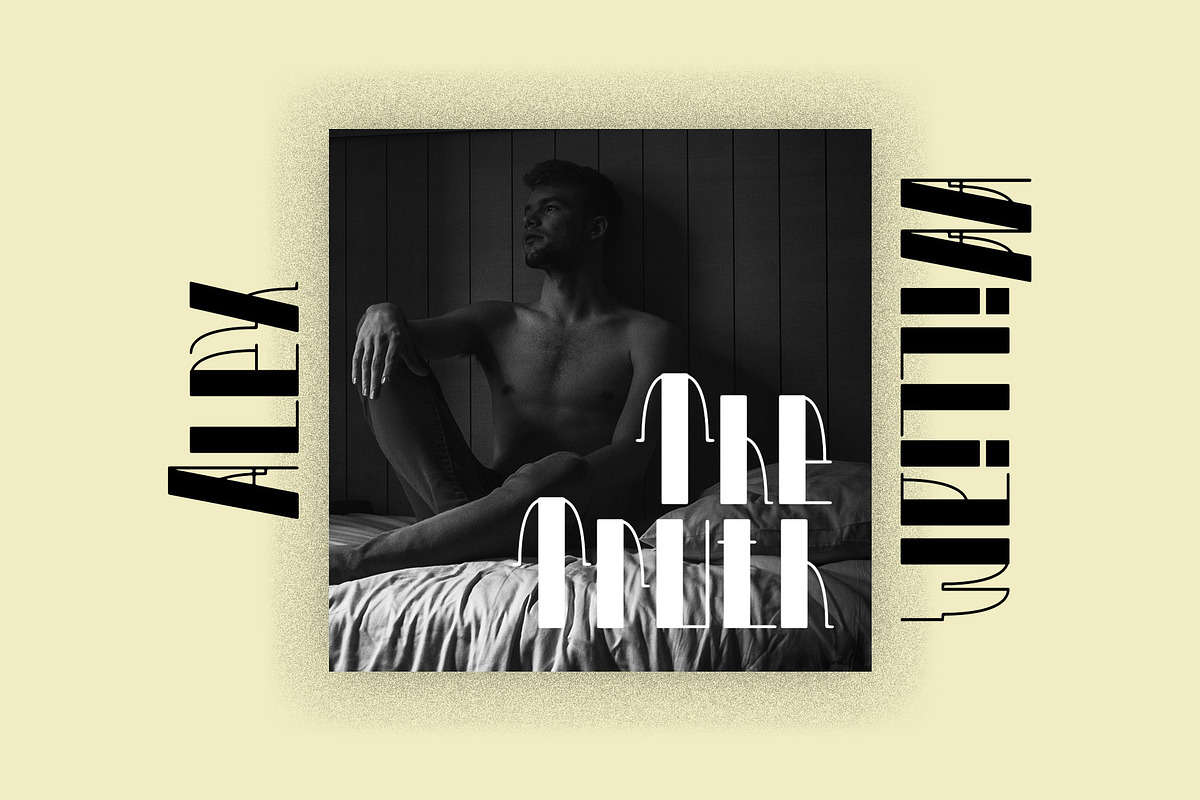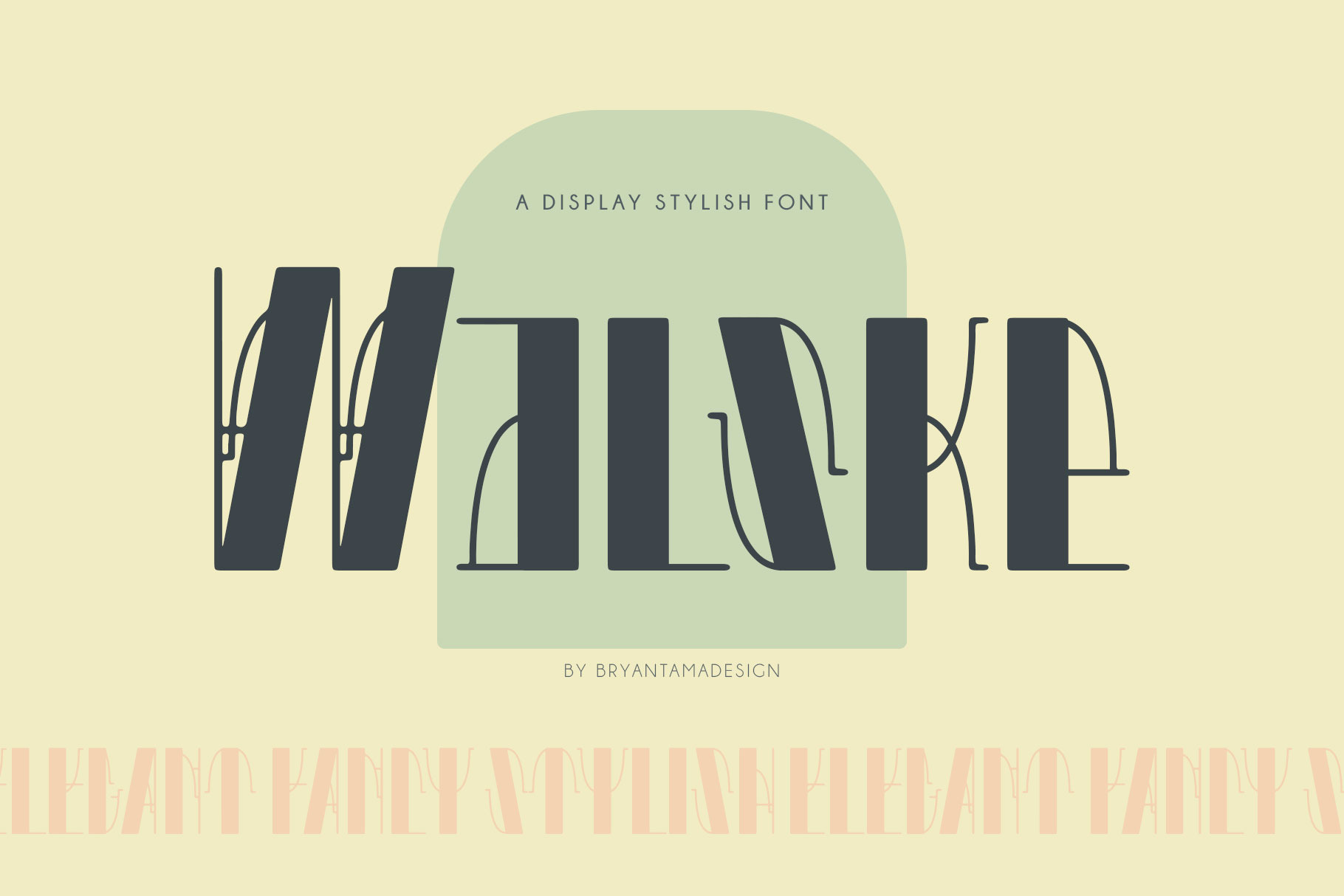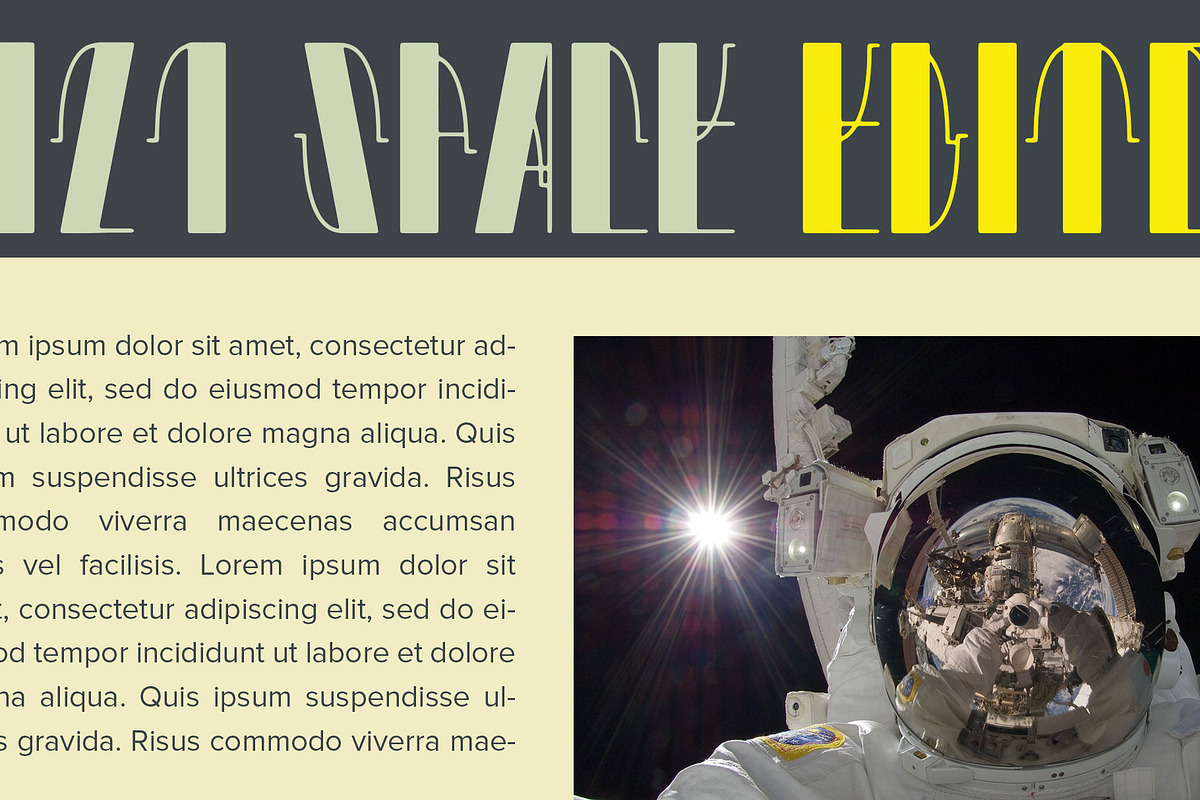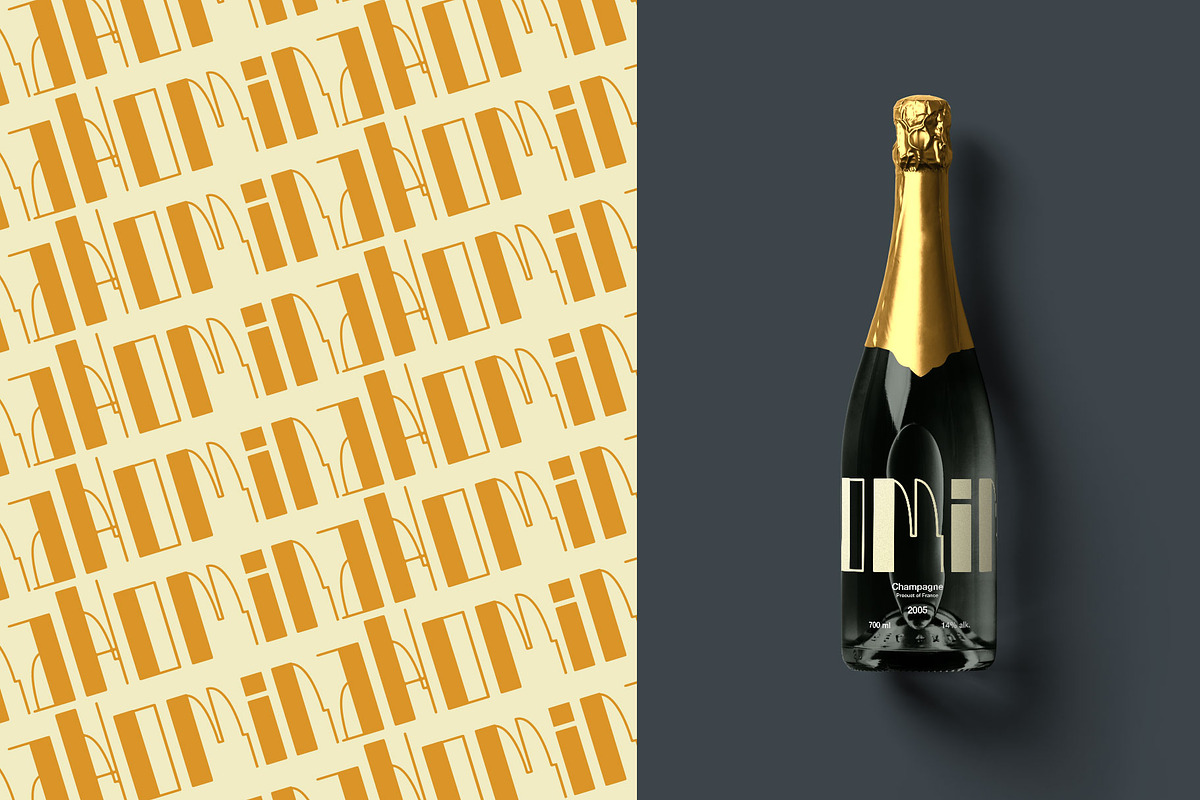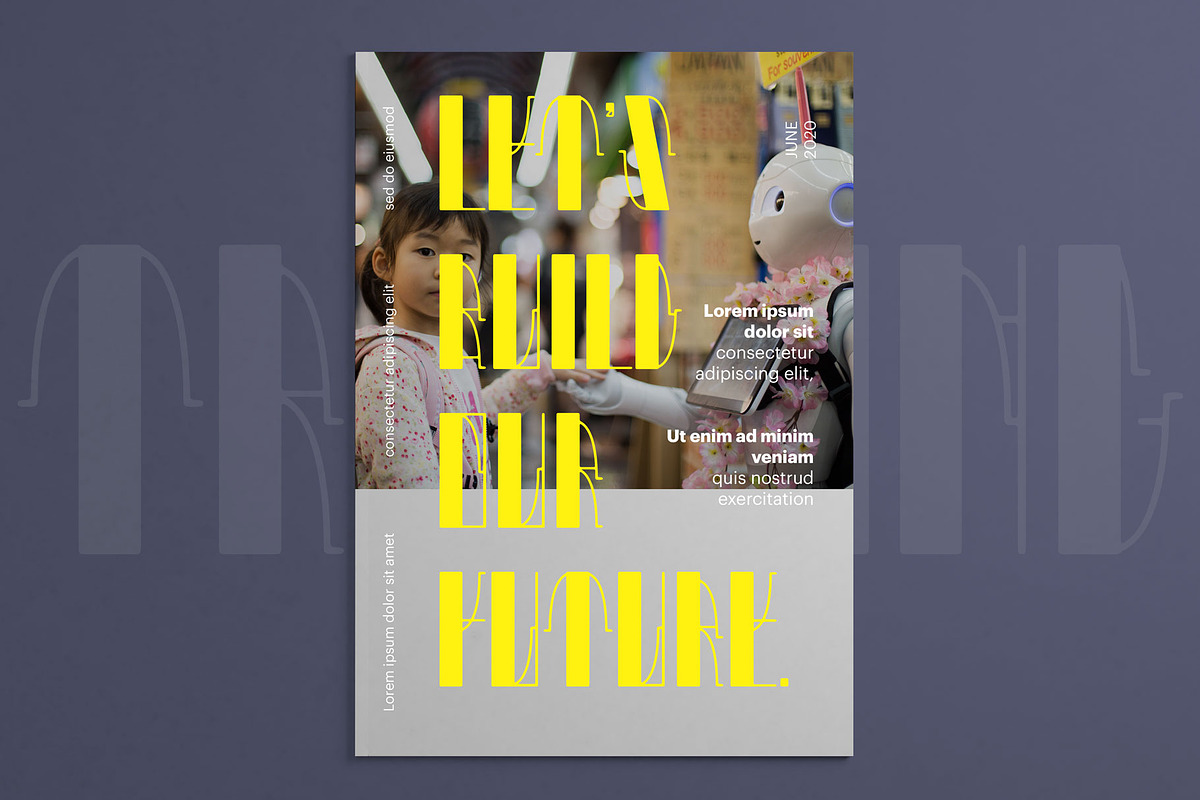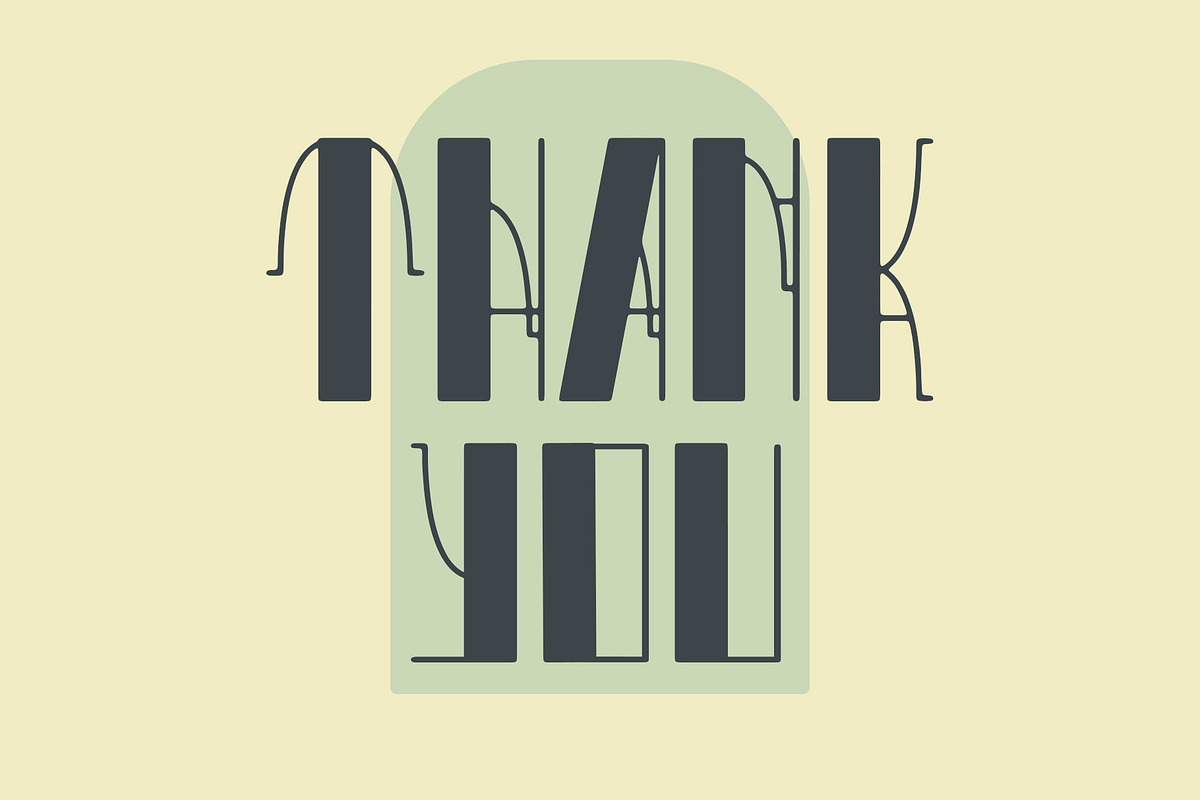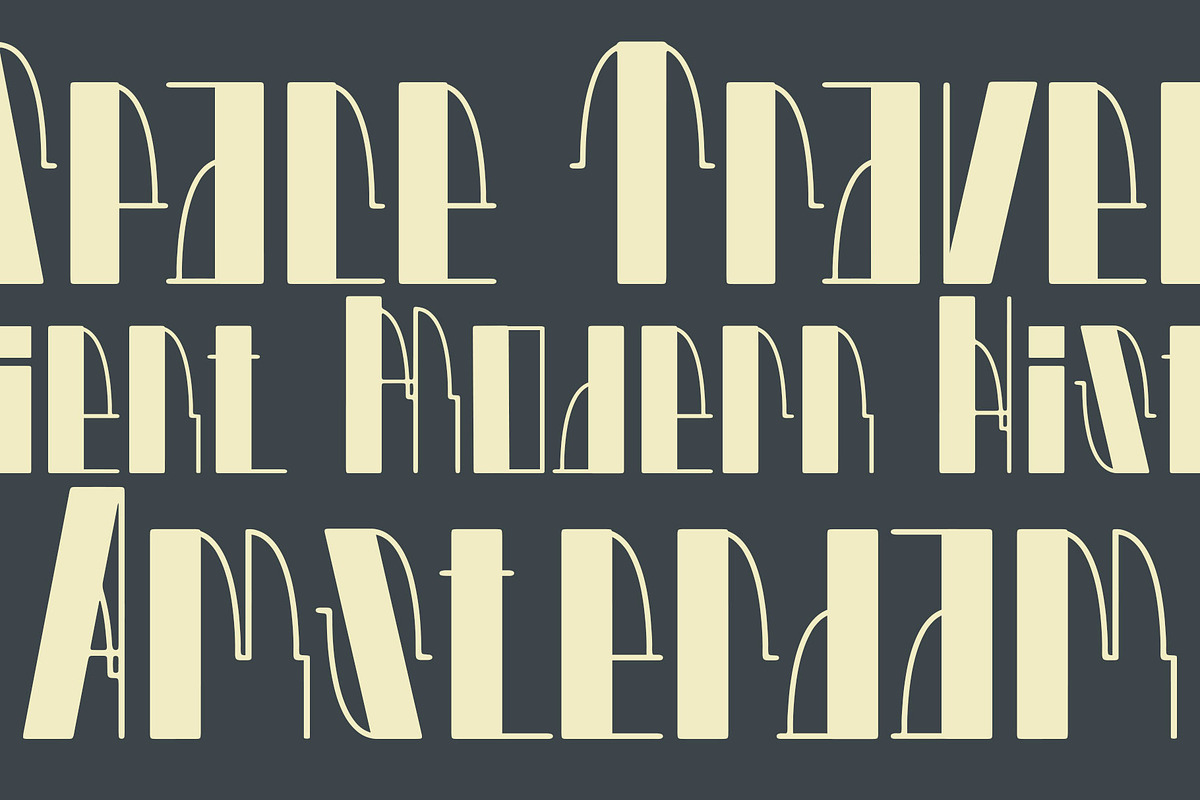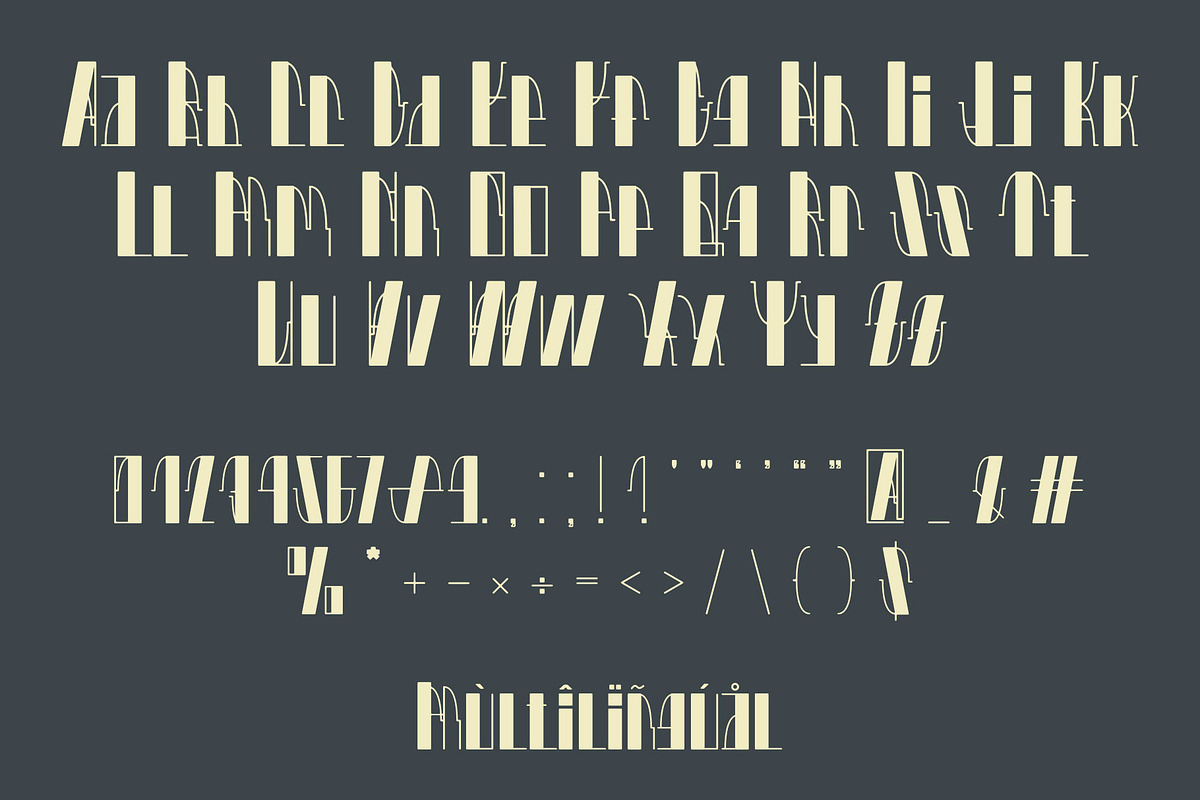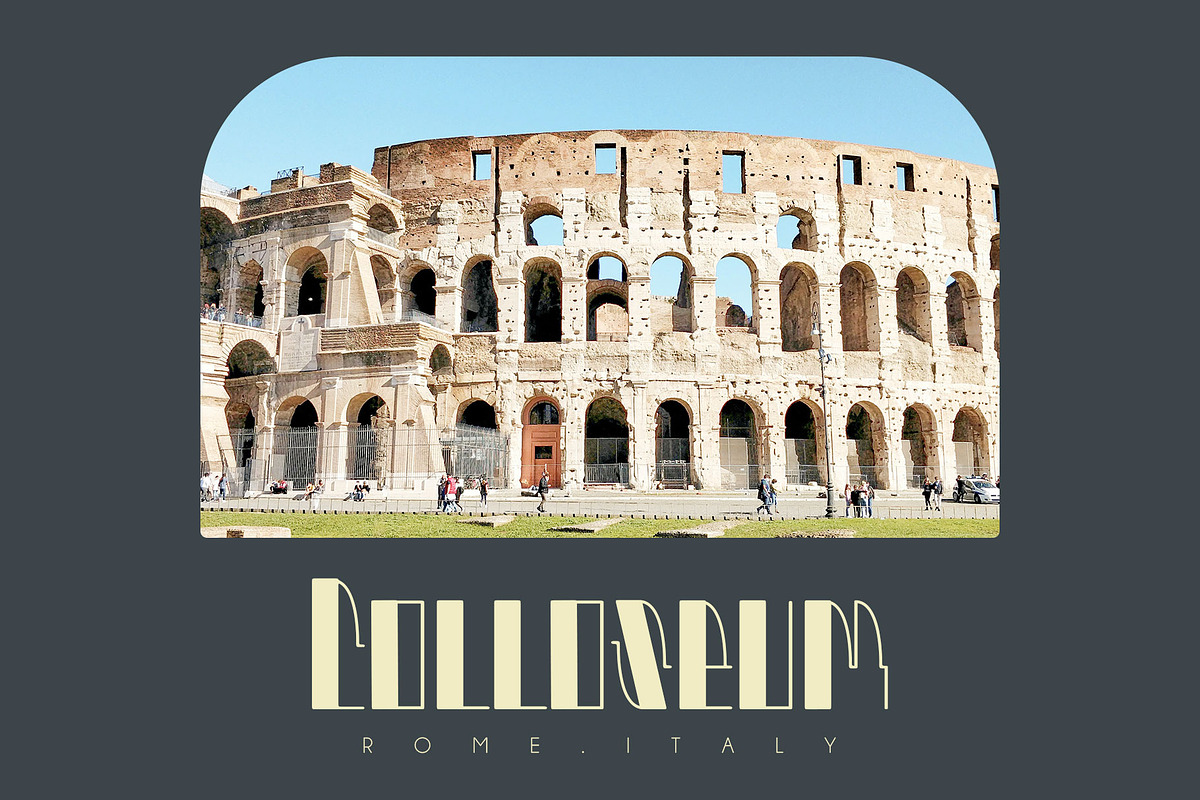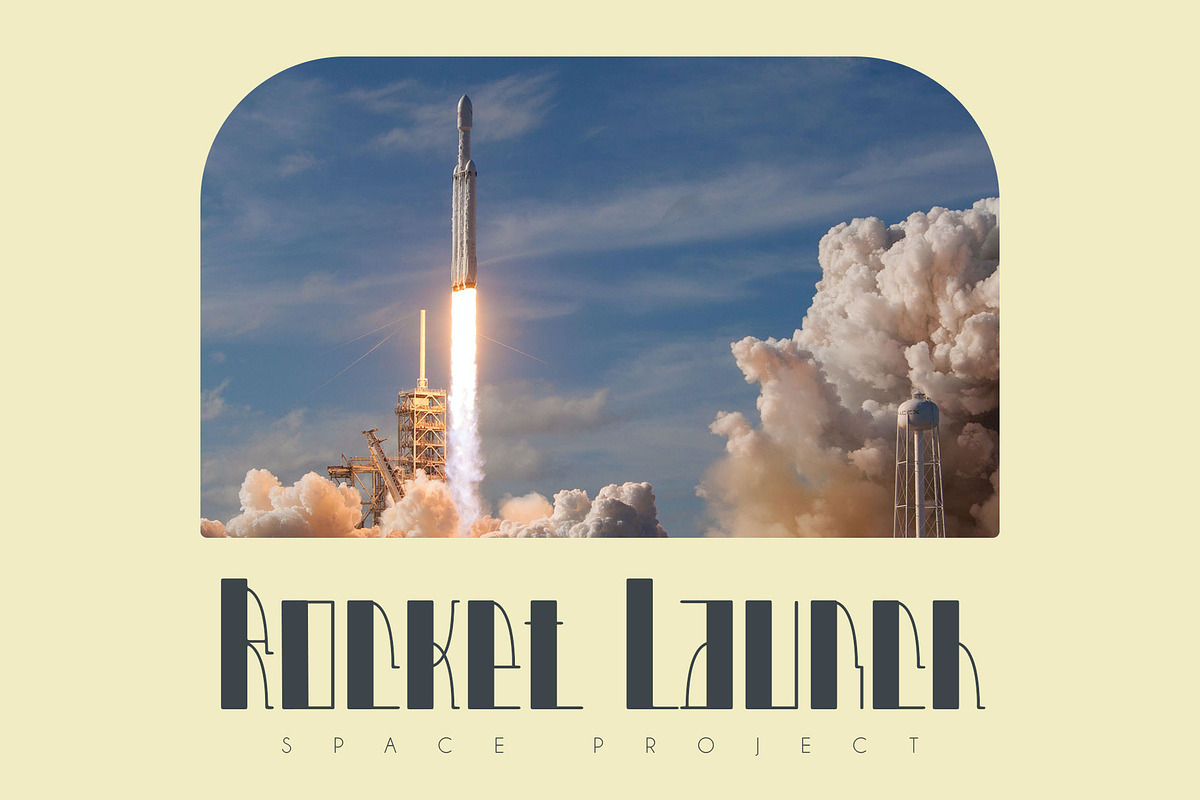
Walske - Vintage Display Font
Introducing Walske. Stylish Display font. Inspired by ancient historical architecture that makes the font has a unique personality, you can use it for every project in different themes for branding, headline/title, posters, packaging, & more. Multilingual support.